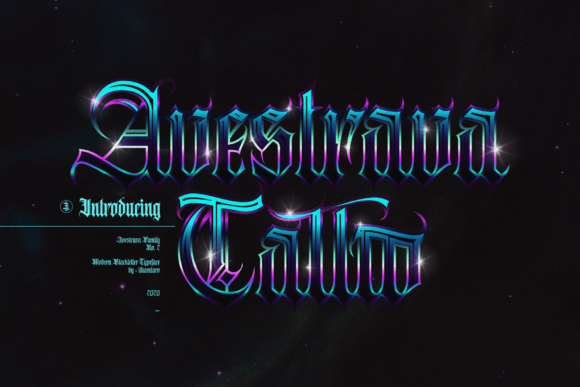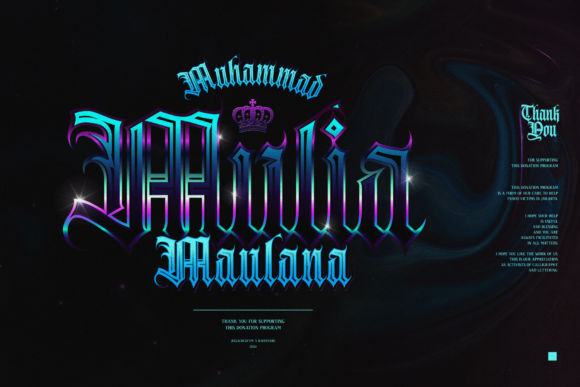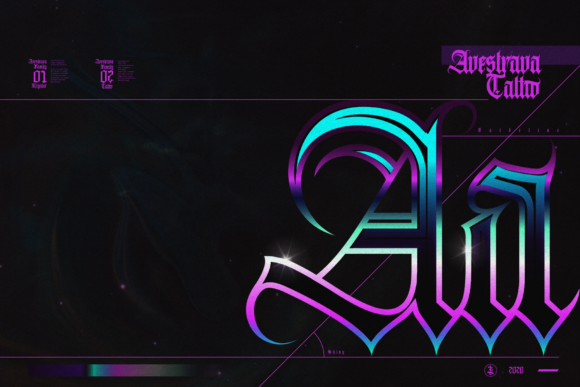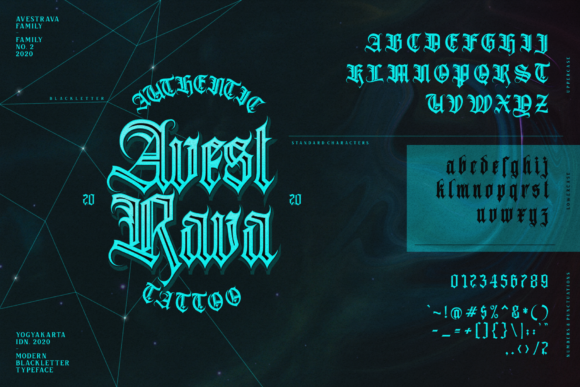
Avestrava Tattoo Font
About the Avestrava Tattoo Font
Add a touch of class to your work with the Avestrava Tattoo Font, a truly exceptional typeface. Avestrava Tattoo features a gorgeous tattoo style with a gothic feel. Use it to take any design project to the next level!
Avestrava Tattoo is ideally suited for headlines, short text blocks on posters, and branding applications where a bold, rebellious statement is desired. Its gothic influences make it perfect for projects related to music, fashion, or tattoo artistry itself. Avoid using it for body copy or lengthy paragraphs; its decorative nature compromises readability in extended text formats. Small sizes also lose impact.
Consider pairing Avestrava Tattoo with a clean sans-serif like Open Sans for body text to provide contrast and improve legibility. For a more elegant approach, a classic serif like Garamond could create a sophisticated juxtaposition. If a more modern feel is desired, a geometric sans-serif such as Montserrat would complement its strong forms.
The font projects a powerful, rebellious personality, emphasizing strength and individuality. Its gothic styling lends itself to a dark or edgy aesthetic, making it unsuitable for projects requiring a softer, more approachable feel.